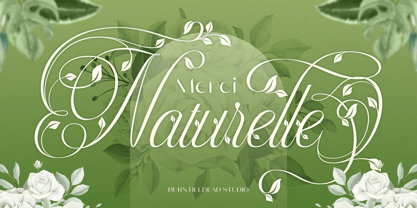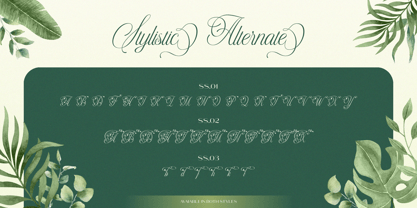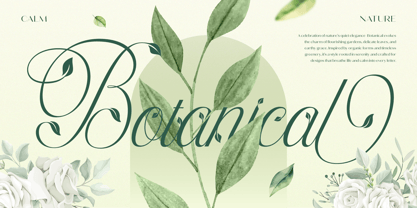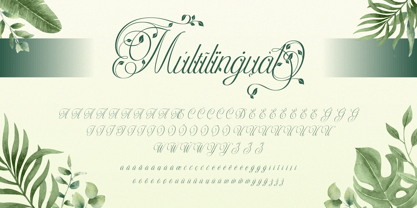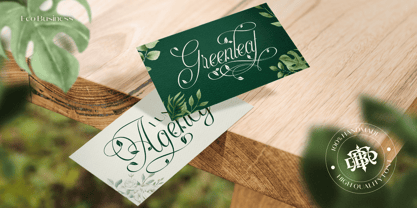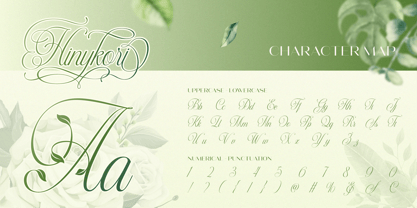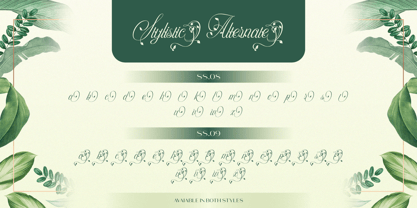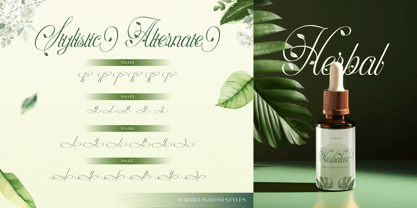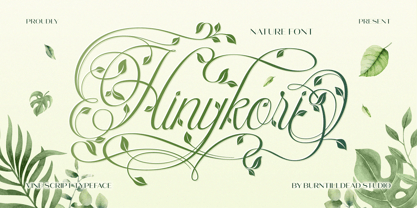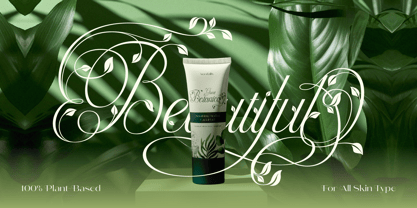
Hinykori
Say hi to Hinykori, a beautiful fusion of classic elegance and soft, flowing leaf ornaments, inspired by the gentle trails of climbing vines.
Hinykori comes in two styles: Regular and Vine.
Inspired by delicate vines and graceful leaf ornaments, Hinykori brings a touch of fresh air and natural luxury into every letterform.
Perfect for eco-branding, wedding stationery, herbal products, and high-end logos, this typeface blends flourishing calligraphy with a modern organic feel.
It includes multiple stylistic alternates to help you customize your typography effortlessly.
Features:
• Uppercase & Lowercase
• Number
• Punctuation
• Alternate
• Multilingual